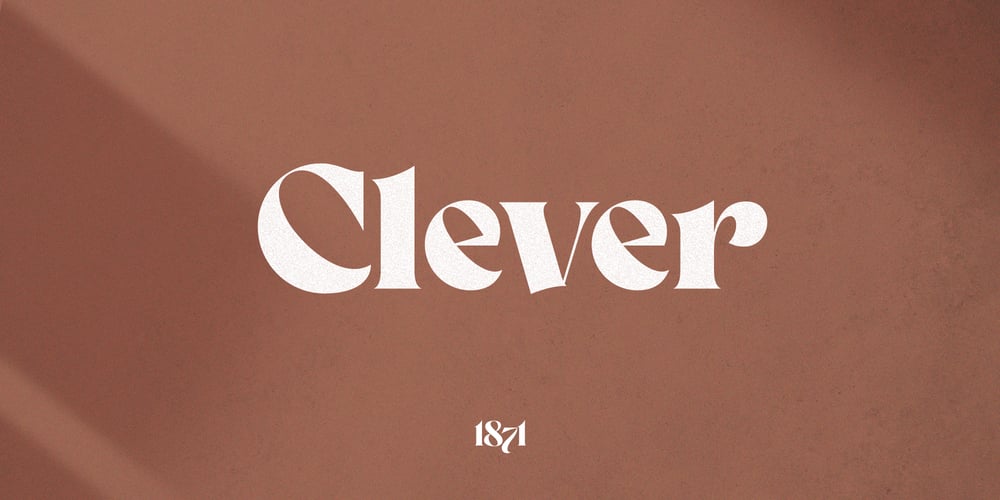
Clever
Clever font
Clever Font Family was designed by Alex Joganic and published by 1871 Project. Clever contains 5 styles and family package options. Introducing Clever, our first serif family!Featuring 5 weights making it super versatile for almost any project! I started creating this at the beginning of quarantine and just recently finished up! Clever is inspired by timeless packaging from a forgotten era. It has a beautiful range of stylistic alternates with unique characters making it a powerhouse for logos, headlines, posters, shirts, you name it! More ligatures/alternates on the way in the coming weeks/months!What do you get? Clever in 5 weights 109 Alternates + 27 Ligatures